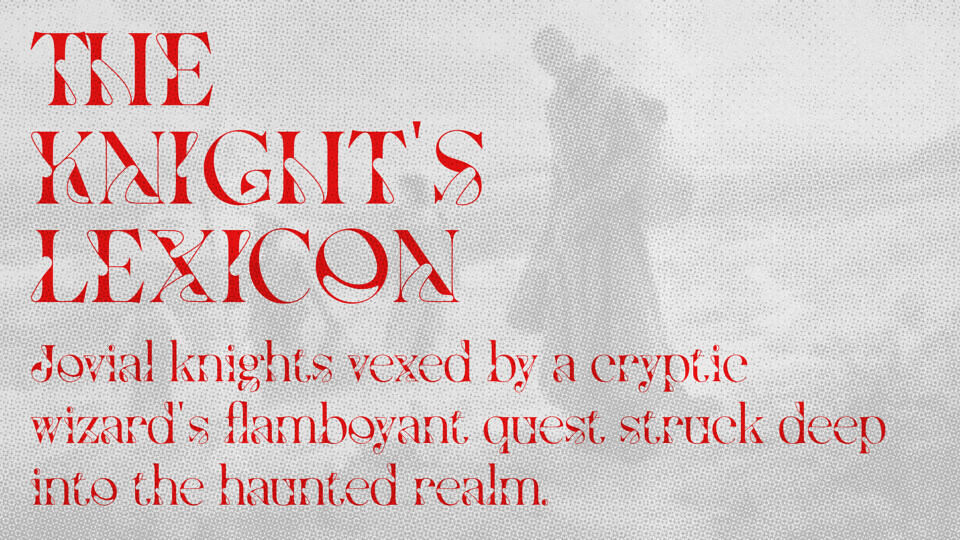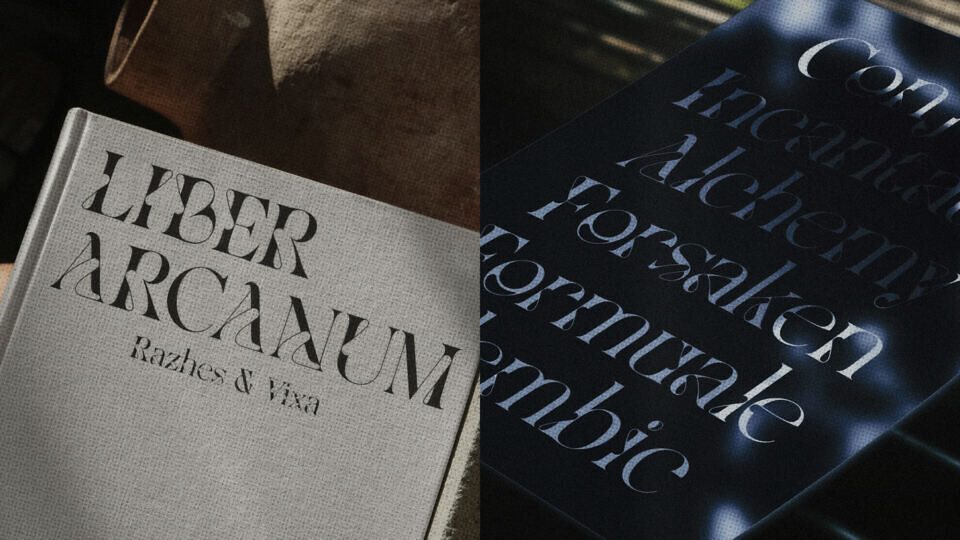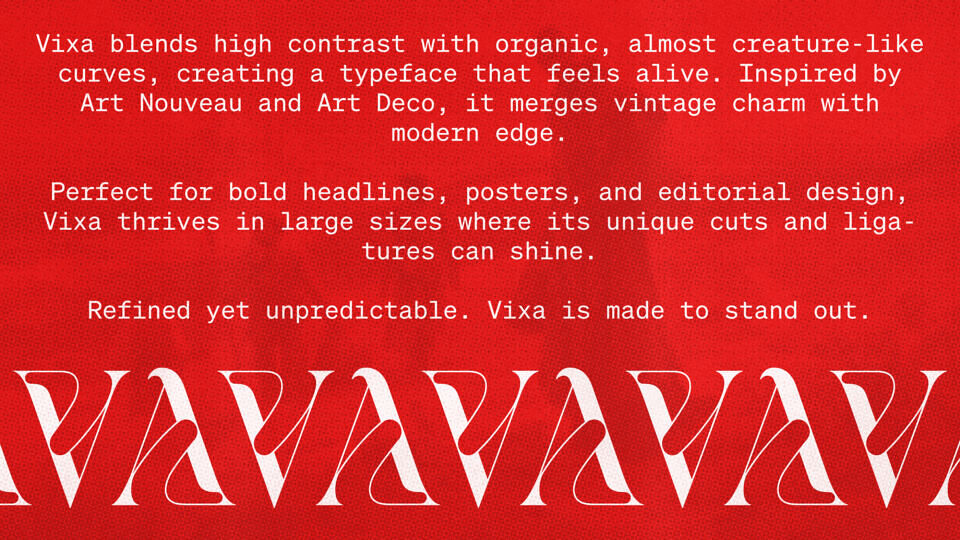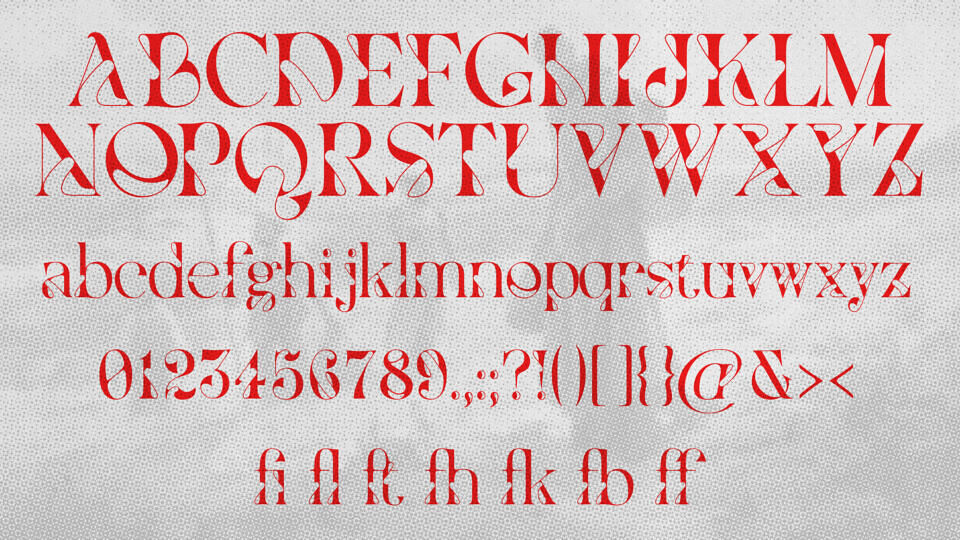
Vixa Font
“Vixa” is a display font I created as an experiment in mixing contrast, elegance, and something a bit… strange. I wanted it to feel alive—almost like it’s morphing while you read it. It blends inspiration from Art Nouveau, Art Deco, and a bunch of fantasy/creature-like aesthetics I kept seeing in my head.
The result is a high-contrast serif font with weird cuts, unexpected curves, and a slightly off-balance vibe that (hopefully) feels unique. It works best at large sizes—titles, posters, logos, anything that wants attention.
I made this font because I love when letters look like characters—like they belong in their own little world. There’s also a medieval-fantasy twist to it, which you’ll notice especially in the pangram and the custom glyphs.
It includes uppercase, lowercase, numbers, punctuation, and a few funky ligatures.